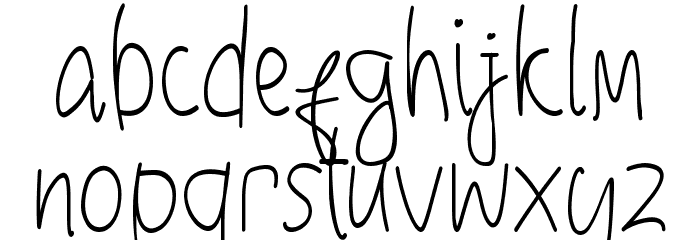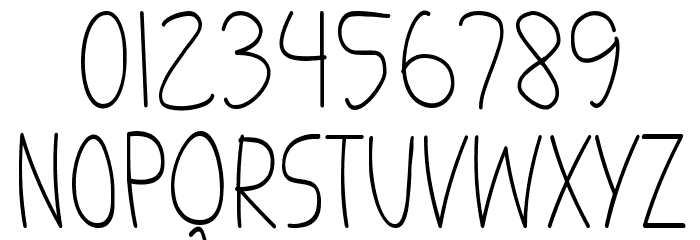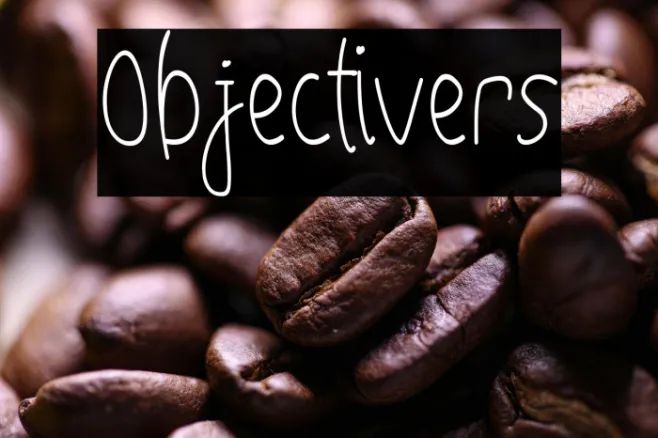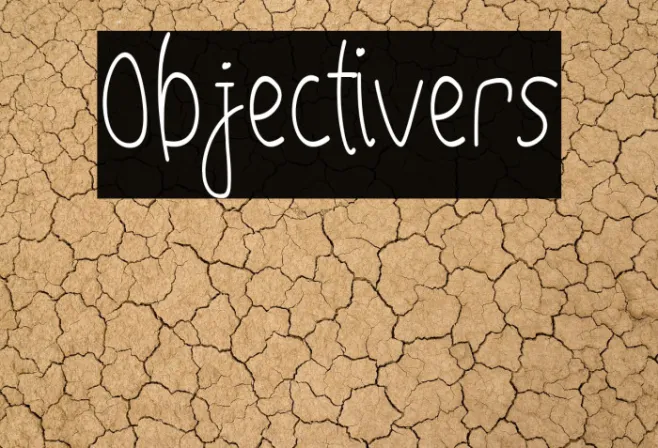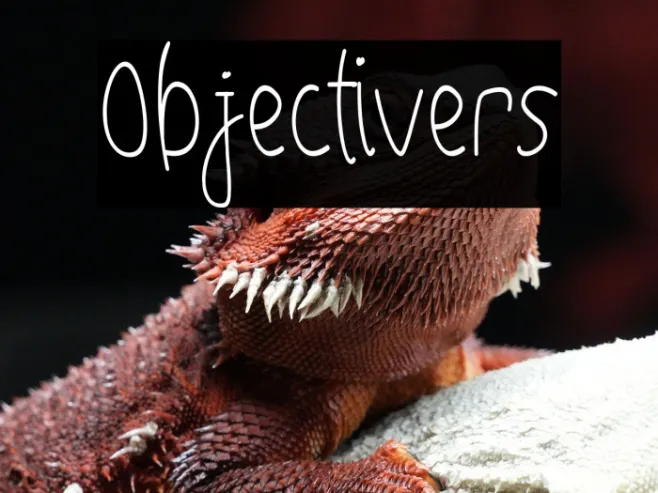
Objectivers Font
This font features a playful, handwritten style with a casual and informal appearance. The letters are tall and narrow, with a slight slant that adds a dynamic feel. The strokes are consistent in width, giving it a uniform look, while the rounded edges soften the overall appearance. The lowercase letters have a whimsical quality, with some characters like 'g' and 'y' having unique, elongated descenders. The uppercase letters maintain a consistent height, contributing to a cohesive design. Numbers are clear and legible, matching the style of the alphabet. Special characters are included, maintaining the same playful and approachable aesthetic.
A playful, handwritten font with a casual and informal style.
- Proposed Projects: Ideal for children's books, greeting cards, casual branding, and social media graphics.
- Category: Handwritten
- Overall Style: Casual
- Use Case: Headlines, Informal text, Creative projects